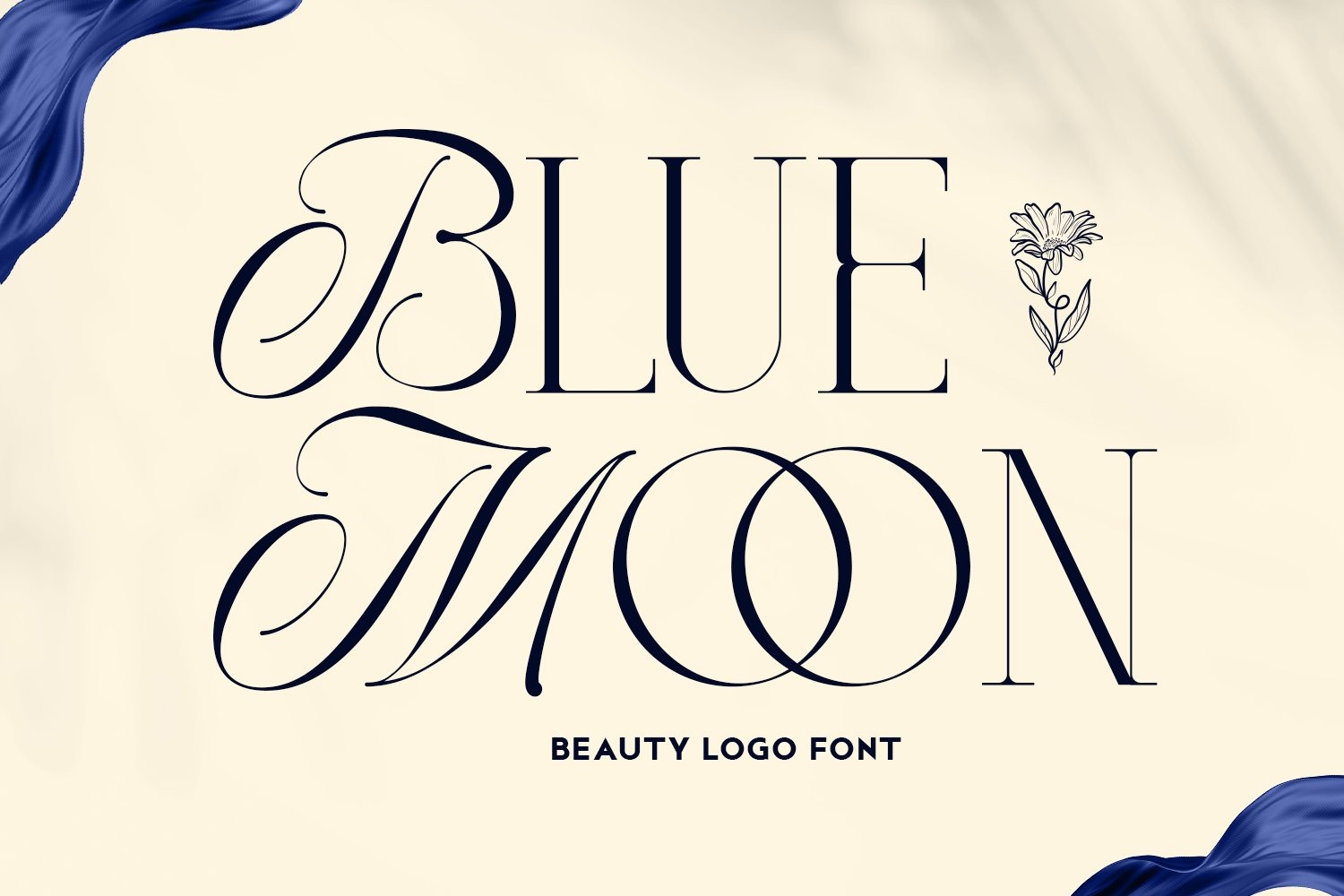
BlueMoon Font
Bluemoon Font is a luxury display font designed to express elegance, refinement, and premium visual quality through sophisticated typography. With its carefully crafted letterforms and balanced proportions, Bluemoon delivers a timeless aesthetic that blends classic luxury with modern design sensibilities. This font is ideal for designers who seek a high-end typographic solution capable of elevating branding, editorial, and creative projects.
As a luxury display font, Bluemoon performs exceptionally well in large-size typography where detail, style, and character are essential. Its elegant structure makes it perfectly suited for logos, branding identities, headlines, posters, packaging, invitations, and editorial designs. Bluemoon communicates a sense of exclusivity and professionalism, making it an excellent choice for premium brands and visually driven projects.
Bluemoon’s design focuses on smooth curves, refined strokes, and graceful letter construction. Each character is designed to maintain clarity while showcasing decorative sophistication, allowing text to appear both stylish and readable. This balance between ornament and legibility ensures that Bluemoon can be used confidently across a wide range of design applications without sacrificing usability.
In branding and logo design, Bluemoon provides a strong visual signature. Its luxury-inspired typography helps brands communicate quality, elegance, and trust. Bluemoon is particularly well-suited for fashion labels, beauty brands, jewelry, lifestyle products, hotels, restaurants, personal brands, and premium services. The font enhances brand recognition by creating a refined and memorable typographic identity that feels timeless rather than trend-driven.
Bluemoon also excels in marketing and promotional design. Luxury-oriented typography plays a key role in influencing perception and emotional response, and Bluemoon delivers this effectively. When used in advertising campaigns, social media visuals, banners, flyers, and promotional graphics, the font enhances visual appeal while maintaining a polished and professional tone. Its elegant display style ensures that headlines and featured text stand out clearly in competitive visual environments.
For web design, Bluemoon adds a sophisticated touch to digital interfaces. As a luxury font for web and UI design, it works beautifully in hero sections, featured headings, landing pages, and promotional banners. Its well-defined letterforms remain visually striking across different screen sizes, supporting responsive layouts and improving visual hierarchy. Bluemoon helps elevate the perceived value of websites by adding an upscale and refined typographic presence.
In print applications, Bluemoon maintains its premium appearance and clarity. It is ideal for magazine covers, brochures, catalogs, business cards, packaging, menus, invitations, and event materials. The font’s elegant proportions and consistent spacing ensure excellent print performance across various formats and materials. Whether used for formal occasions or luxury product presentations, Bluemoon enhances visual storytelling and brand communication.
Bluemoon integrates seamlessly into professional design workflows. It pairs well with minimalist sans-serif fonts for body text or classic serif fonts for editorial layouts, allowing designers to build cohesive and balanced typographic systems. This flexibility makes Bluemoon suitable for both standalone display use and integrated branding systems.
The font includes a comprehensive set of uppercase letters, numerals, punctuation, and essential symbols, providing the versatility needed for real-world design projects. Its consistent spacing and smooth visual rhythm allow for clean layouts and professional typography with minimal adjustment. This attention to detail ensures reliable results across digital and print environments.
Creative professionals, brand designers, and visual storytellers will appreciate Bluemoon’s ability to transform simple text into elegant visual statements. Whether used for luxury branding, editorial design, high-end marketing, or creative campaigns, Bluemoon supports expressive typography while maintaining clarity and refinement. The font empowers designers to communicate emotion, quality, and sophistication through typography alone.
Overall, Bluemoon Luxury Font delivers a refined blend of elegance, clarity, and premium design quality. Its sophisticated display style, versatile usability, and timeless aesthetic make it an excellent choice for designers seeking to elevate their projects with luxury typography. From branding and logos to web design and print materials, Bluemoon provides a strong typographic foundation that enhances visual impact, professionalism, and brand value.